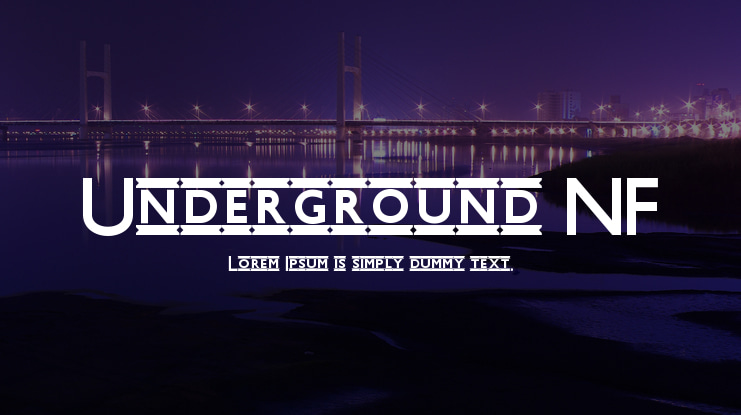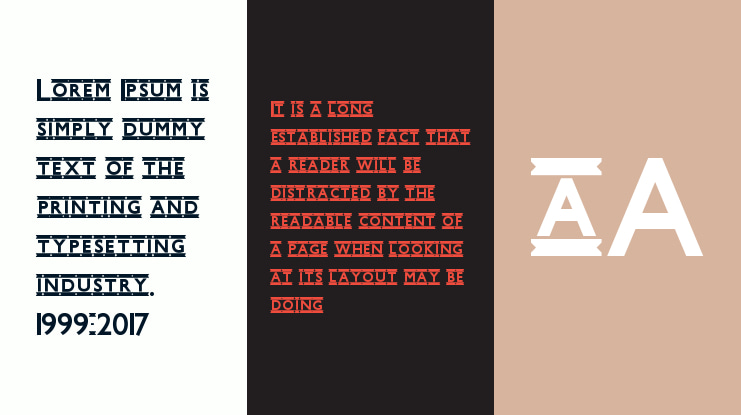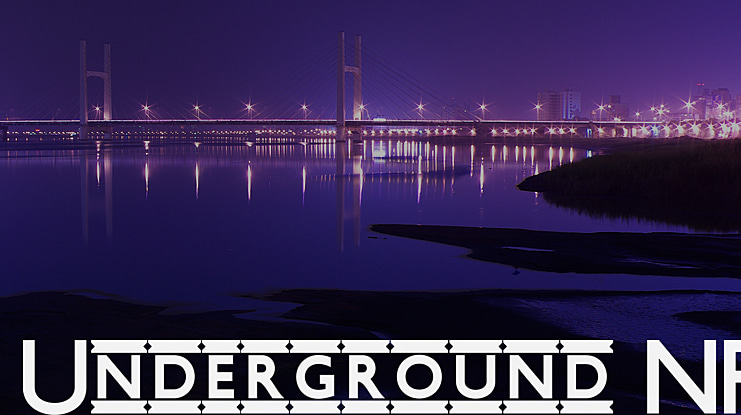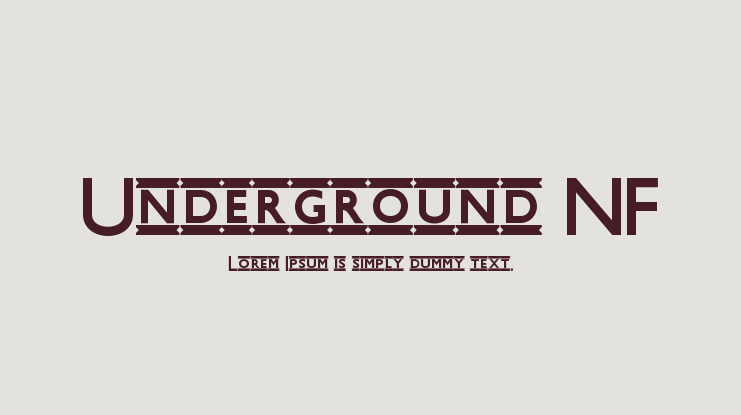
A somewhat lesser-known British designer named Edward Johnston devised the original lettering and logotype for Londonâs subway, known officially as The Underground and informally as The Tube. The logotype is still in use today; the lettering was later adapted by Eric Gill, and most of us are familiar with the resulting fonts that bear his name. This incarnation simulates the lettering tiles used by the system during the late twenties and early thirties. For a lowercase space, use the underscore (_) key; for a bulleted space, use the equal (=) key. See the chart below for lowercase numbers. Windows users: make sure the âNum Lockâ light is on, and enter the number on the keypad while holding down the âALTâ key. Mac users: sorry â no lowercase 8, unless you know some undocumented way to insert the S-caron character